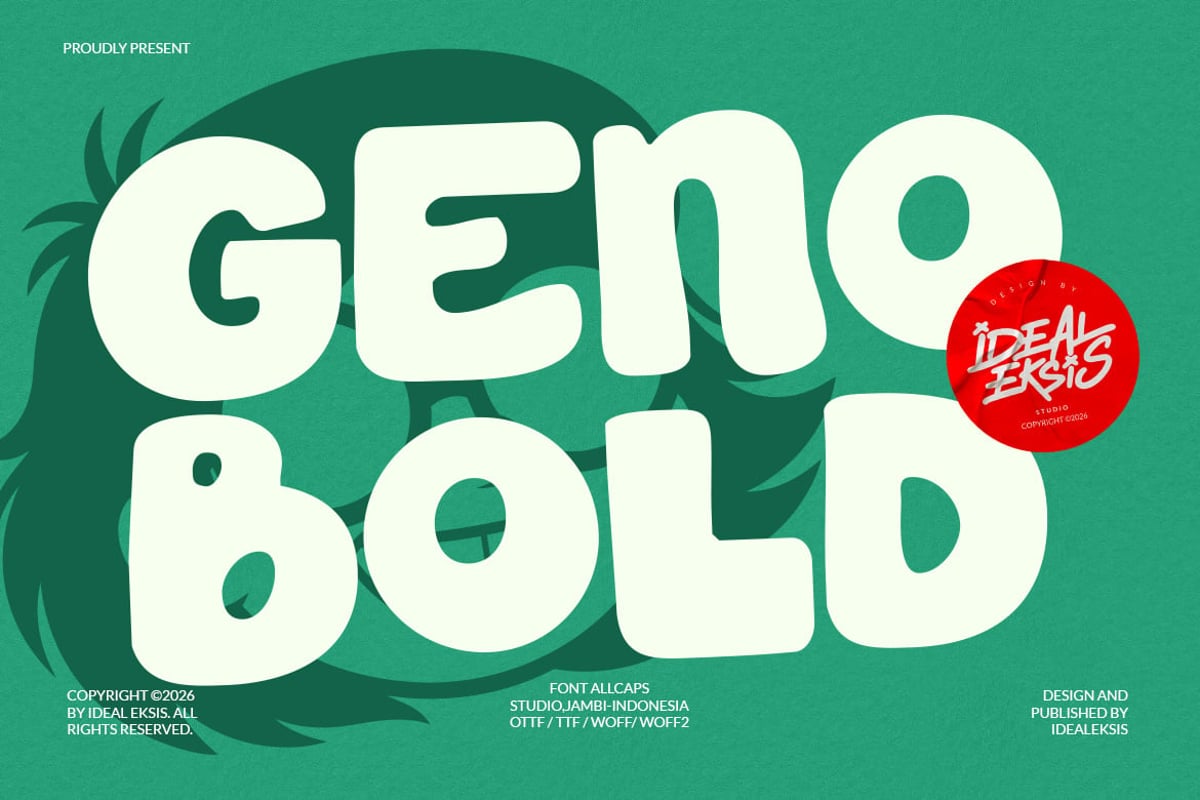
Geno Bold - Playful Food Font
Make a bold, friendly statement with Geno Bold's chunky, rounded letterforms and irresistible bubbly charm.
This heavy-weight display typeface delivers maximum visual impact through ultra-thick strokes with minimal contrast, creating a solid and commanding presence. Every character features soft, bulbous terminals that eliminate harsh edges, resulting in a welcoming and cheerful aesthetic that draws viewers in.
The tight counters and compact spacing make Geno Bold perfect for high-impact headlines, logo design, and branding projects that demand fun and energy. Its bold construction ensures outstanding legibility in large formats, making it an excellent choice for posters, packaging, and digital media where you need a strong, uplifting statement.